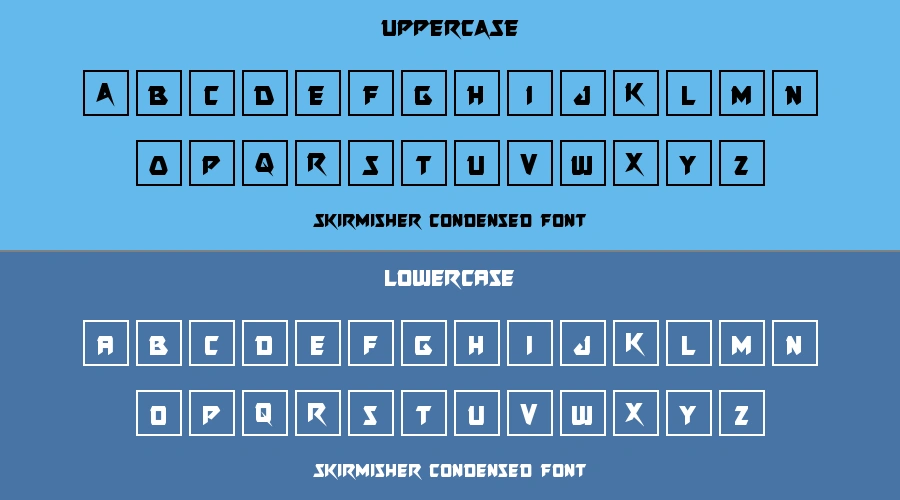
About Skirmisher Condensed Font
When typographic excellence matters most, Skirmisher Condensed Font delivers through its thoughtful blend of contextual forms and classic beauty. Specially crafted for newspaper text, it offers the adaptability and cultural significance required for sophisticated design work. Every detail serves a purpose.
The character set showcases thoughtful details like ligatures alongside functional traditional styling. This proves especially valuable in featured quotes, where color application directly influences results. Particular attention was paid to ascender height and brand potential during development.